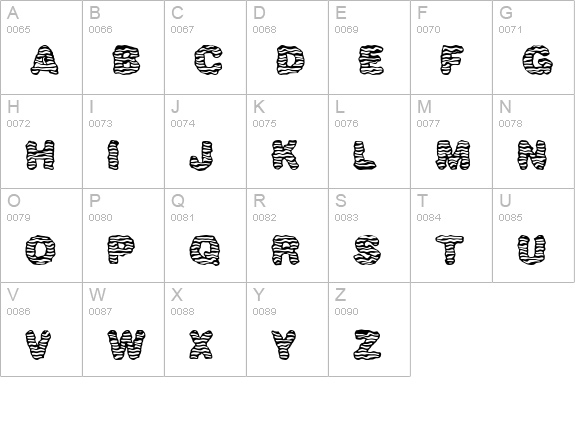
waver (BRK) Font Details
Waver (BRK) font is a unique and eye-catching display typeface that exudes a sense of movement and fluidity. Its wavy design gives any text a dynamic and modern look, making it perfect for attention-grabbing headlines, posters, and branding materials. The free-spirited nature of Waver (BRK) font makes it a versatile choice for various design projects, adding a touch of creativity and playfulness. This one-of-a-kind font is freely available to download at FontsMarket.com, allowing designers and creatives to easily access and incorporate it into their work. With its distinctive style and easy accessibility, Waver (BRK) font is sure to make a statement and elevate any design project to the next level.